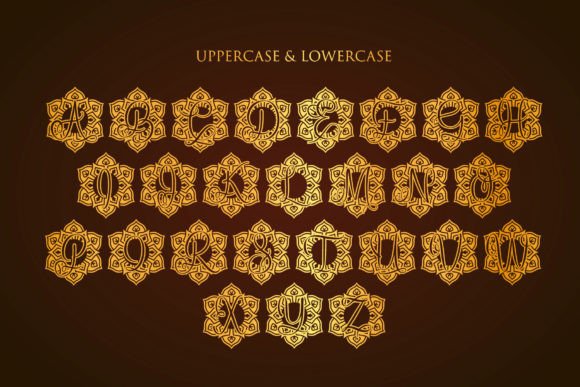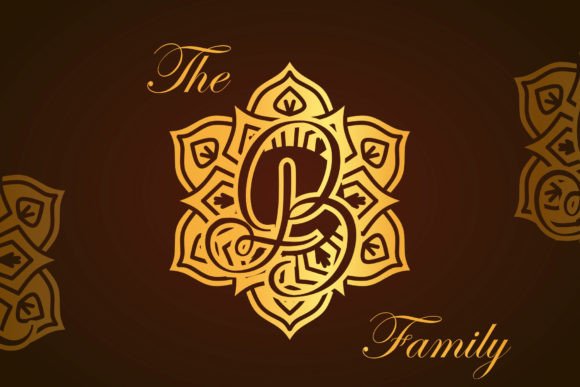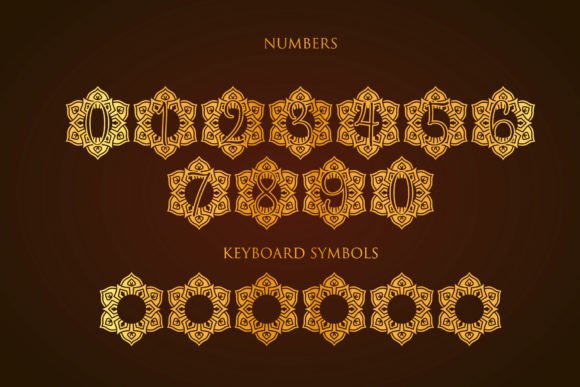
Introducing Glory Mandala Monogram Font: Elevate Your Designs with Elegance
In the world of design, fonts play a crucial role in conveying the essence and aesthetic of a project. For crafters, logo designers, and artists, finding the perfect font can be a game-changer. This is where the Glory Mandala Monogram Font comes into play, offering an elegant and unique decorative solution inspired by the intricate beauty of mandala art.
What is Glory Mandala Monogram Font?
Glory Mandala Monogram Font is a meticulously crafted typeface that embodies the serene and symmetrical qualities of mandalas. Mandalas, known for their intricate designs and spiritual significance, have inspired artists and designers for centuries. This font brings that inspiration to your digital and print projects, allowing you to add a touch of elegance and mystique.
Key Features of Glory Mandala Monogram Font
- Elegant Design: Each letter is designed with the intricate detail and symmetry characteristic of mandalas, making it perfect for projects that require a sophisticated look.
- Unique Monograms: The font includes a range of monogram options, allowing for personalized designs that stand out.
- Versatility: Suitable for a variety of applications, from crafting and scrapbooking to logo design and branding.
- User-Friendly: Designed to be easy to use, even for those with basic computer skills, ensuring that anyone can create beautiful designs.
Uses of Glory Mandala Monogram Font
The versatility of Glory Mandala Monogram Font makes it an excellent choice for numerous design projects. Here are some of the most popular applications:
- Logo Design: Create memorable and elegant logos for businesses, events, or personal brands.
- Crafting and Scrapbooking: Add a personal touch to handmade crafts, scrapbook pages, and DIY projects.
- Branding: Enhance your brand’s visual identity with a unique and sophisticated font.
- Stationery: Design beautiful and distinctive stationery, including invitations, greeting cards, and letterheads.
- Digital Art: Incorporate the font into digital art projects, such as illustrations, animations, and web graphics.
Why Choose Glory Mandala Monogram Font?
In a sea of fonts, Glory Mandala Monogram stands out for several reasons:
- Unique Inspiration: Drawing from the spiritual and aesthetic appeal of mandalas, this font offers a fresh perspective on decorative typography.
- Support for Creativity: Perfect for both beginners and professionals, it encourages creativity and experimentation in design.
How to Get the Most Out of Glory Mandala Monogram Font
To maximize the potential of this beautiful font, consider the following tips:
- Experiment with Colors: Mandalas are known for their vibrant colors. Try different color schemes to match your project’s theme.
- Mix and Match: Combine Glory Mandala Monogram Font with other fonts for a unique contrast.
- Play with Sizes: The font’s details shine at larger sizes, but it also works beautifully at smaller sizes for more subtle effects.
Glory Mandala Monogram Font is more than just a typeface; it’s a design element that can elevate your projects with its elegance and uniqueness. Inspired by the beauty of mandalas, this font offers a wide range of creative possibilities, from professional branding to personal crafting projects. By incorporating Glory Mandala Monogram Font into your designs, you’re not just choosing a font; you’re adding a statement piece that speaks to sophistication, creativity, and attention to detail.
Whether you’re a seasoned designer or a crafting enthusiast, Glory Mandala Monogram Font is a valuable addition to your creative toolkit. So, why wait? Explore the possibilities of Glory Mandala Monogram Font today and let your designs shine with elegance and charm.